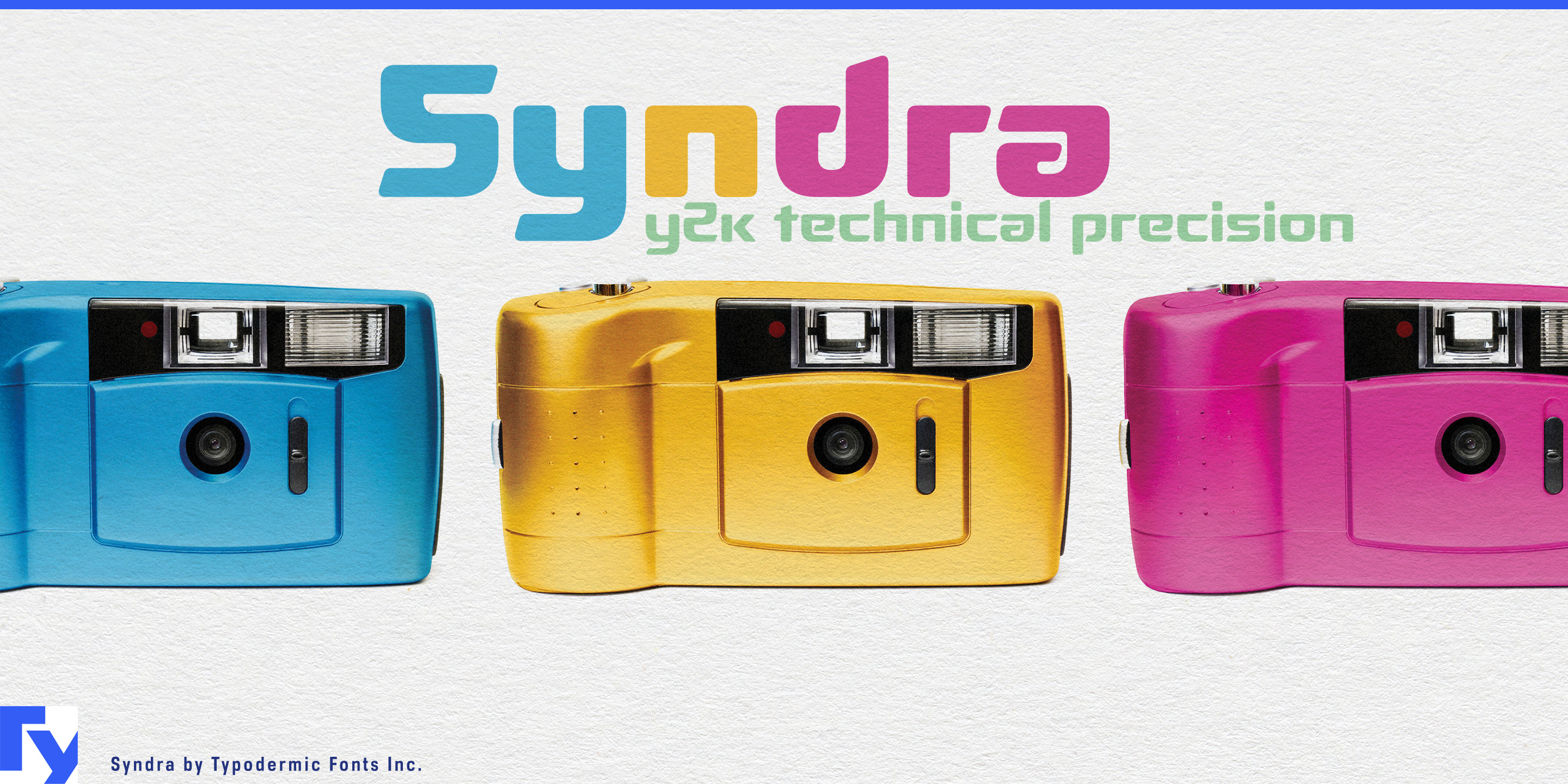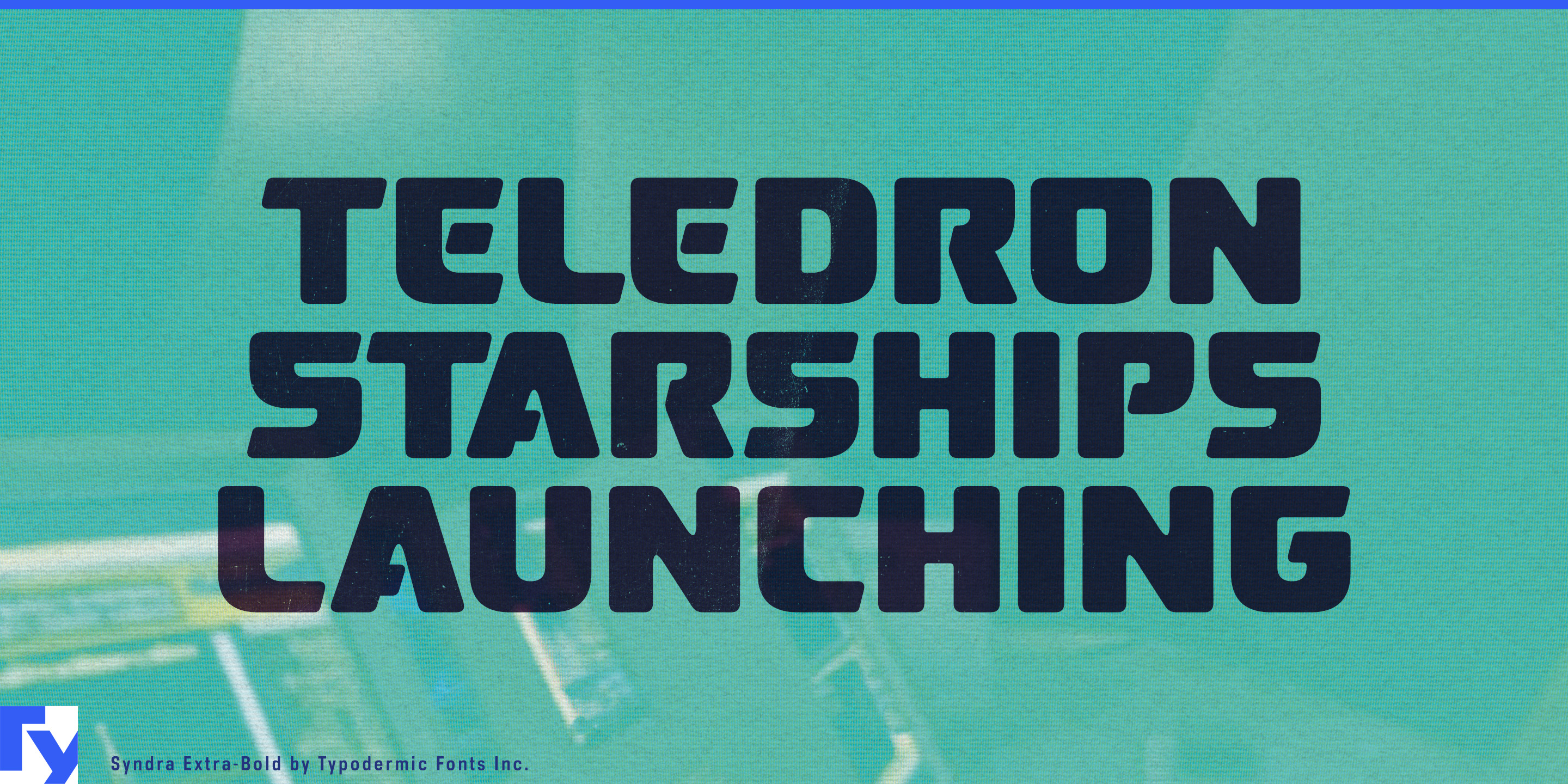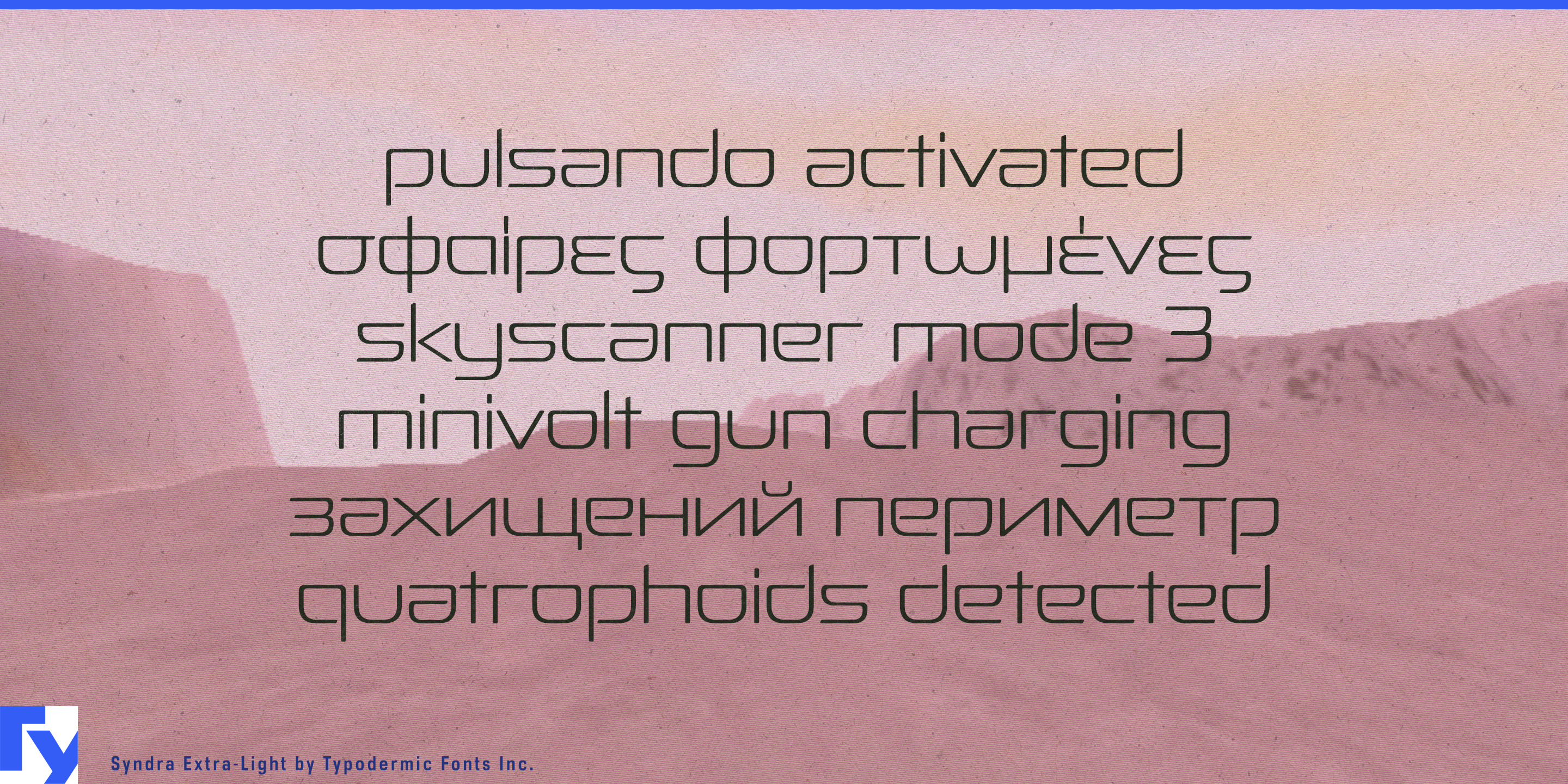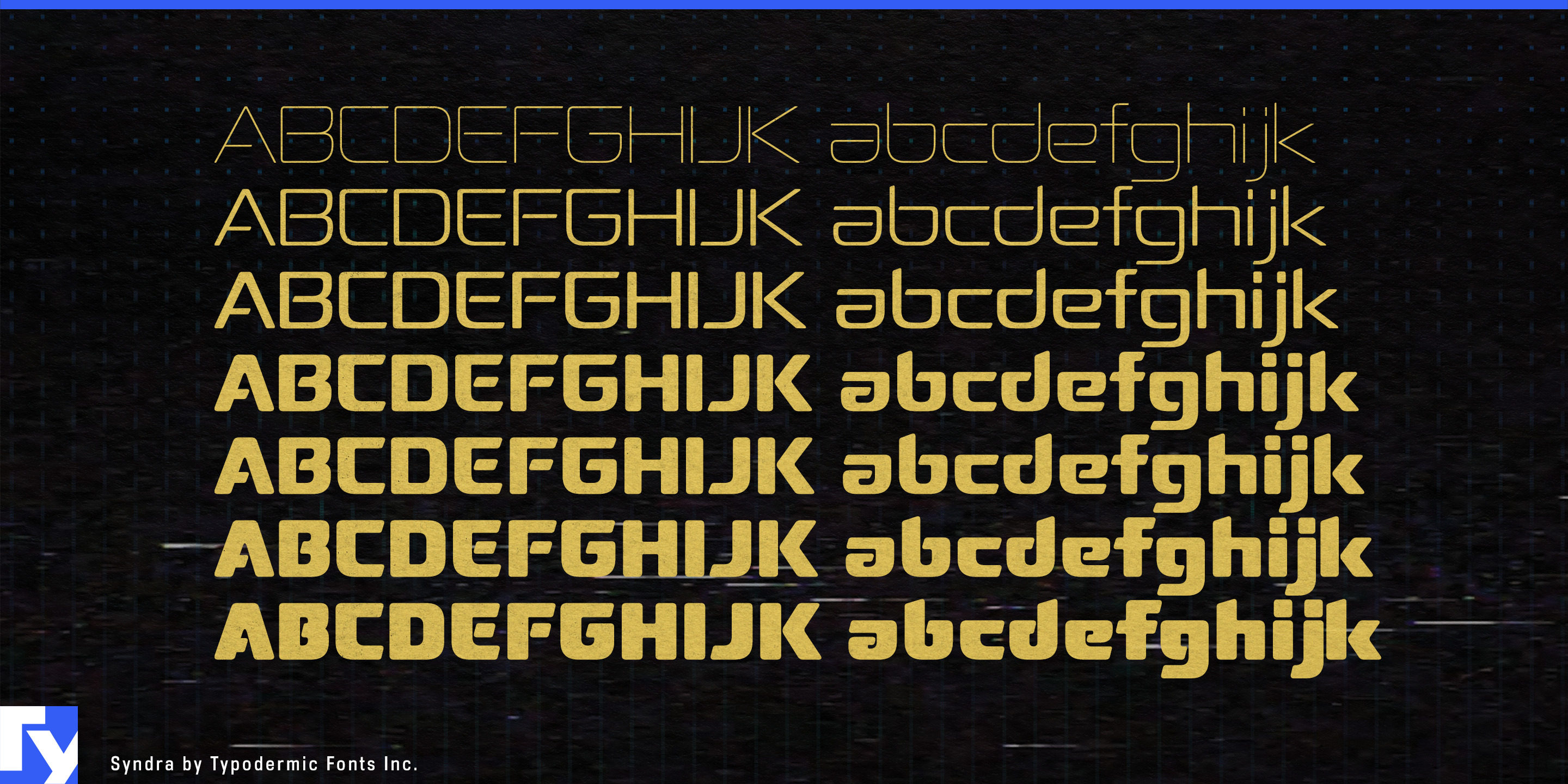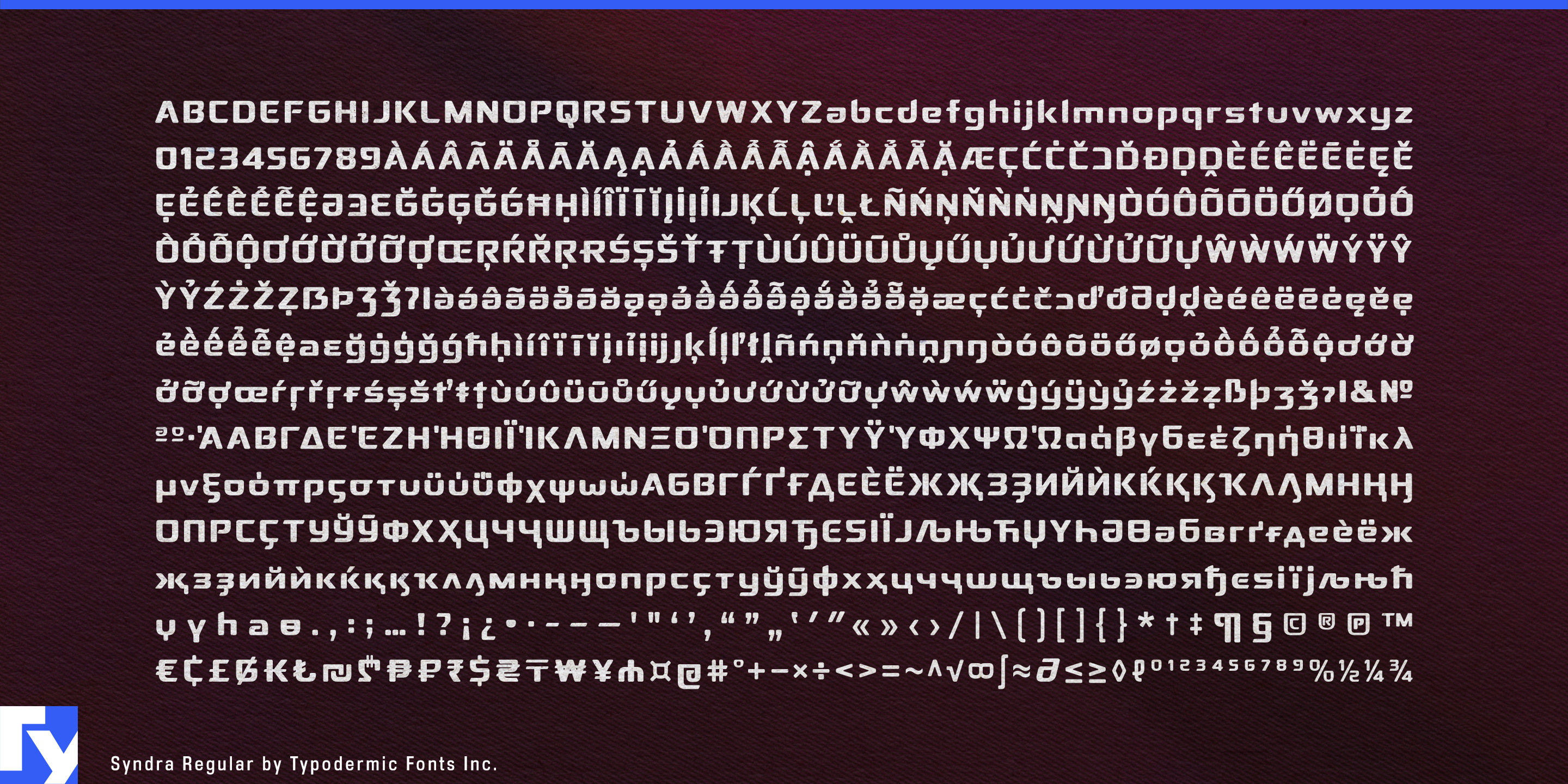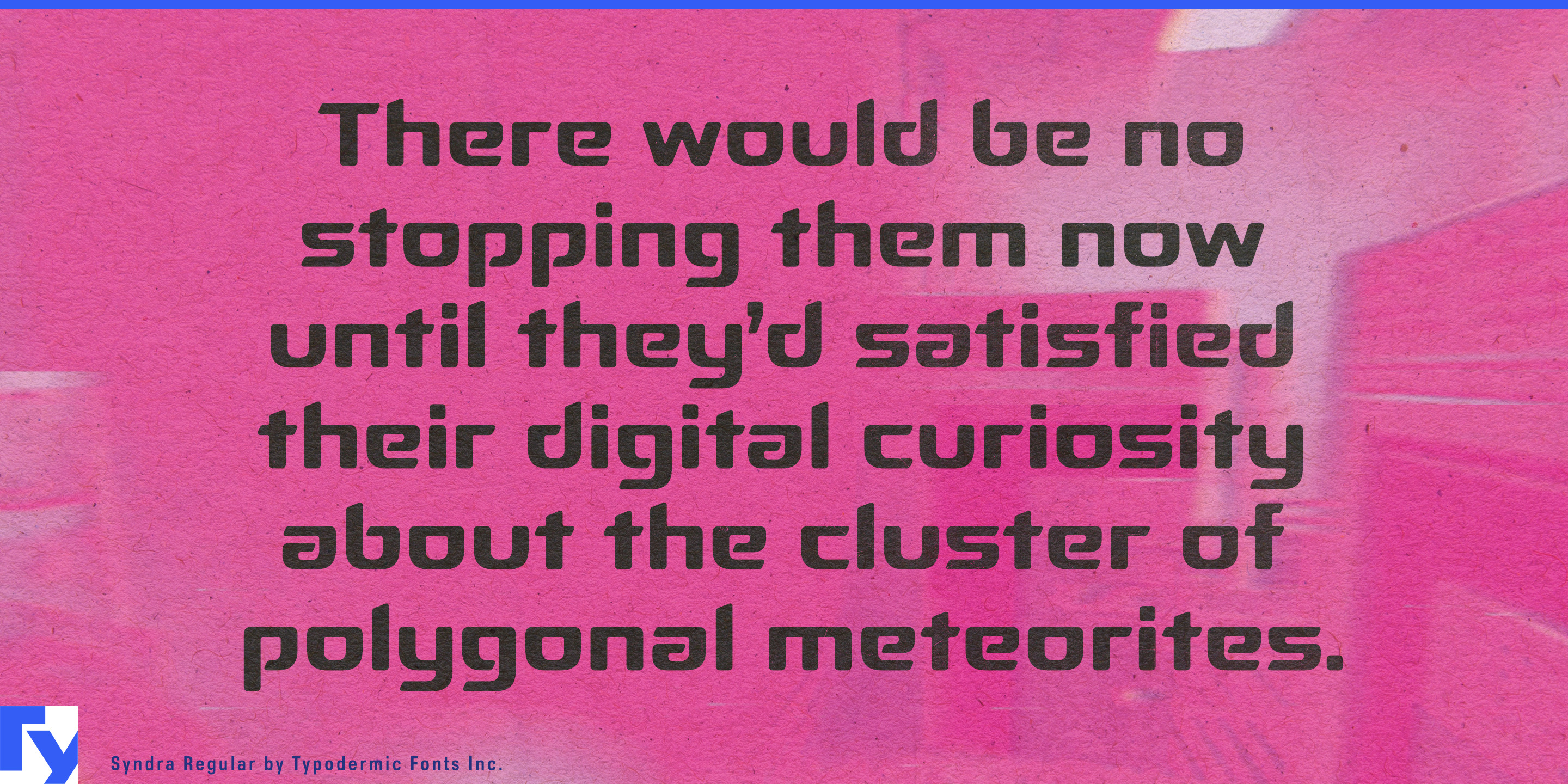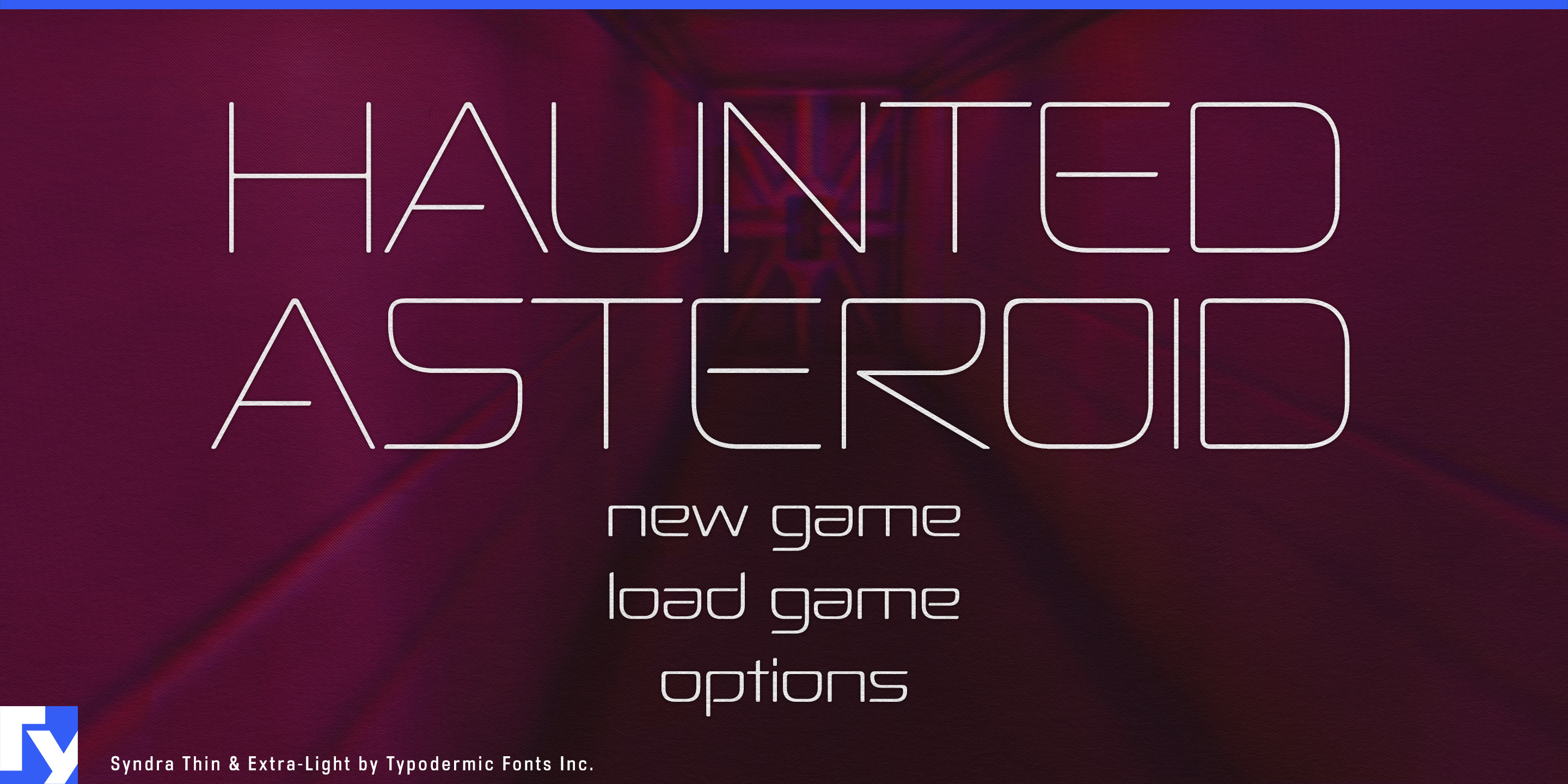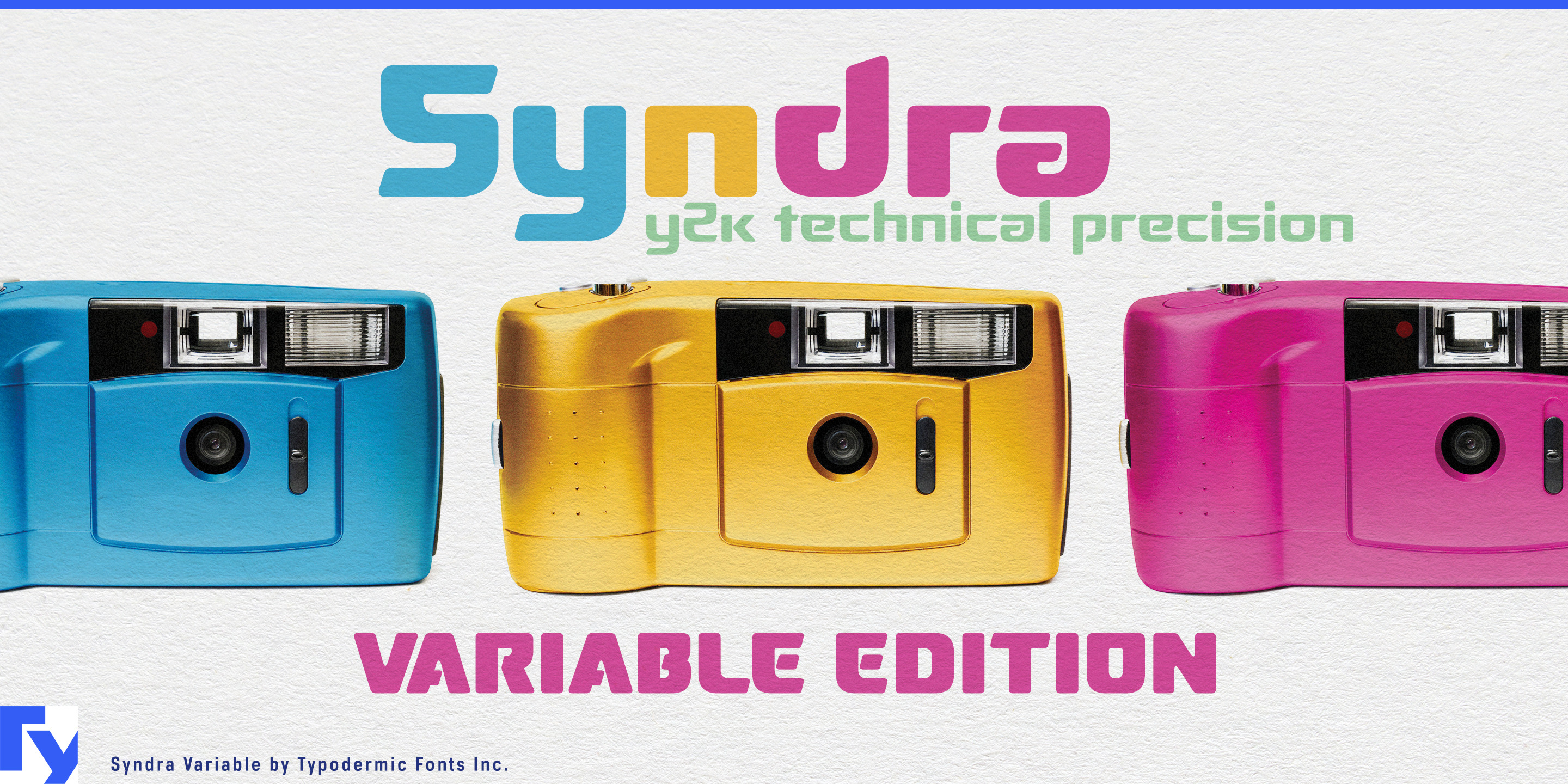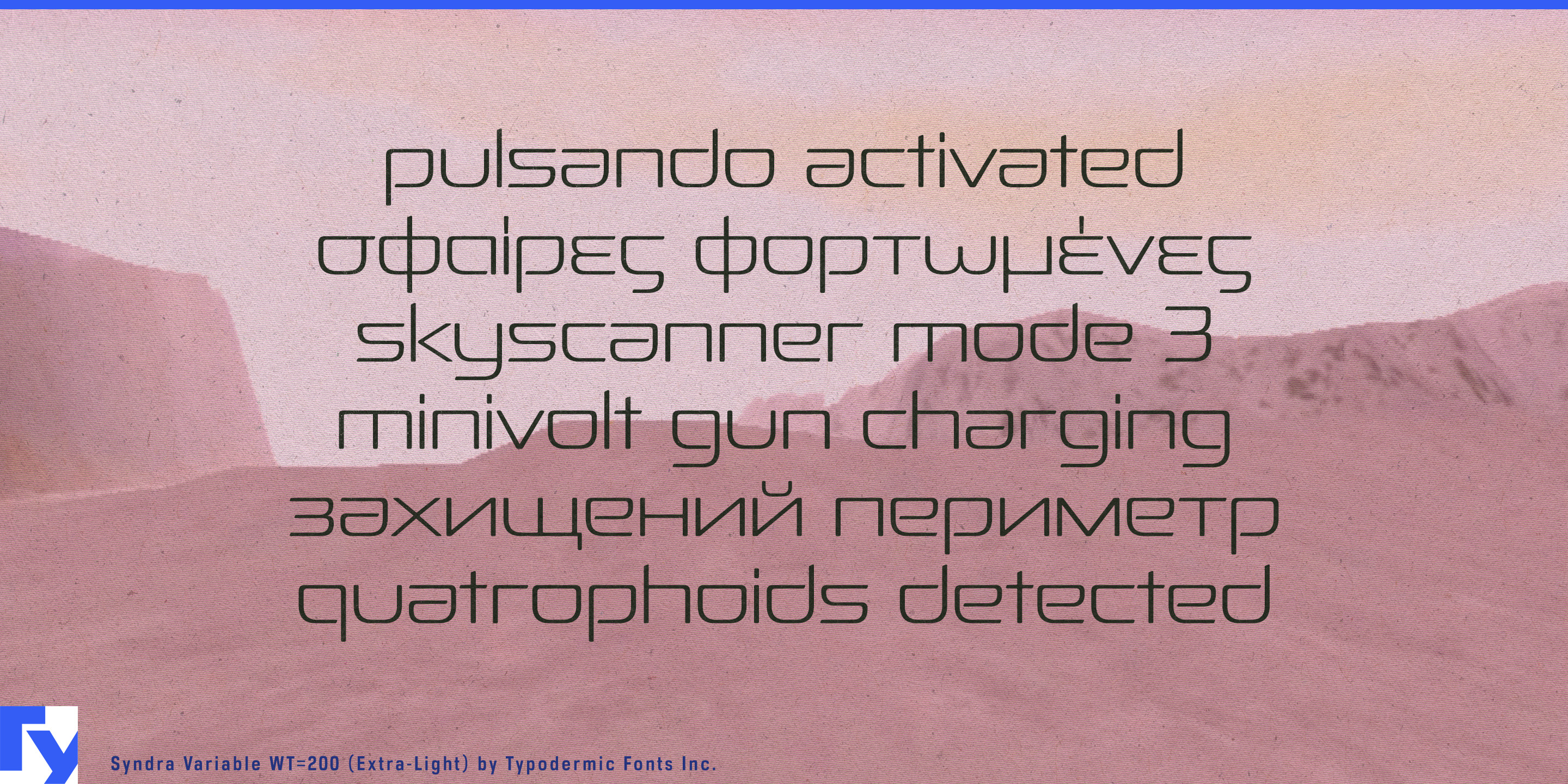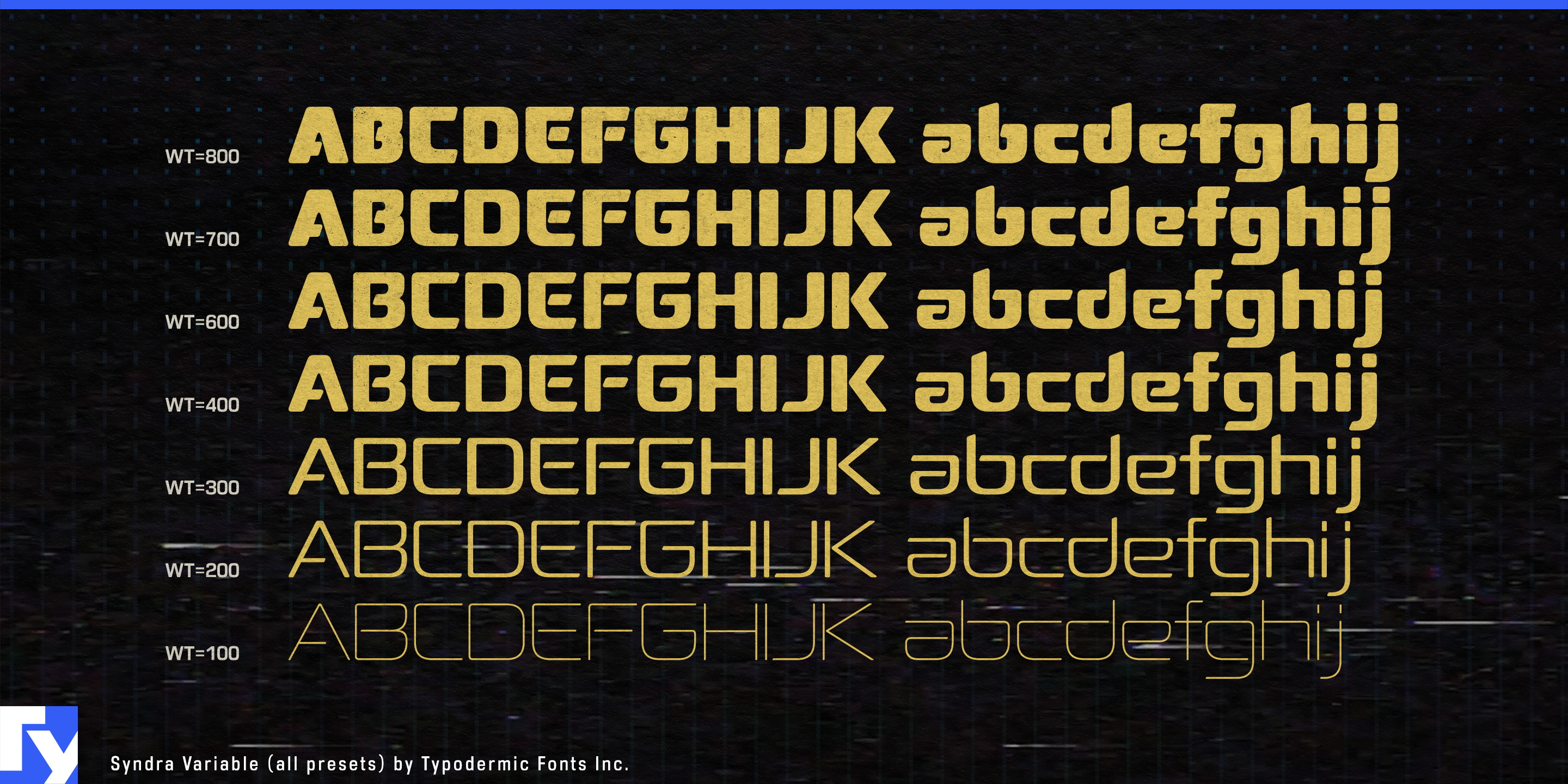
Syndra
Technical-looking typefaces often suggest technology without looking particularly comfortable on an actual piece of equipment. Syndra works better when the typography has to live on the product itself. Its rounded rectangular construction, clipped transitions and open-ended strokes feel at home beside molded housings, recessed controls, display windows and other pieces of industrial design.
Across seven upright weights from Thin through Extra-Bold, the same construction changes character substantially. The lighter styles have an almost schematic quality, while the heavier weights become dense and enclosure-like. That range makes it possible to build product names, model designations, short labels and display hierarchy from one visual system.
Portable speakers, battery packs, cameras, laser measuring tools, 3D printers and electronic instruments all give Syndra’s geometry somewhere tangible to belong. It also suits newer categories of engineered domestic hardware: EV chargers, home batteries, solar inverters, heat pumps and e-bike electrical components. The mechanical structure feels credible on equipment, while the rounded corners keep it from becoming severe.
Medical, diagnostic and recovery equipment offer another useful territory. Physiotherapy devices, dental equipment, lab instruments and fitness machinery can use Syndra for brand names, product families, model numbers and large interface labels, leaving specifications and longer instructions to a quieter companion face.
The lighter weights also work well in science-centre exhibitions, industrial-design presentations, technology museums and engineering graphics, where short headings, callouts and diagram labels can share a visual language with heavier display titles. Syndra’s strength is not simply that it looks technical; it gives engineered products and technical environments lettering that feels designed alongside the objects themselves.